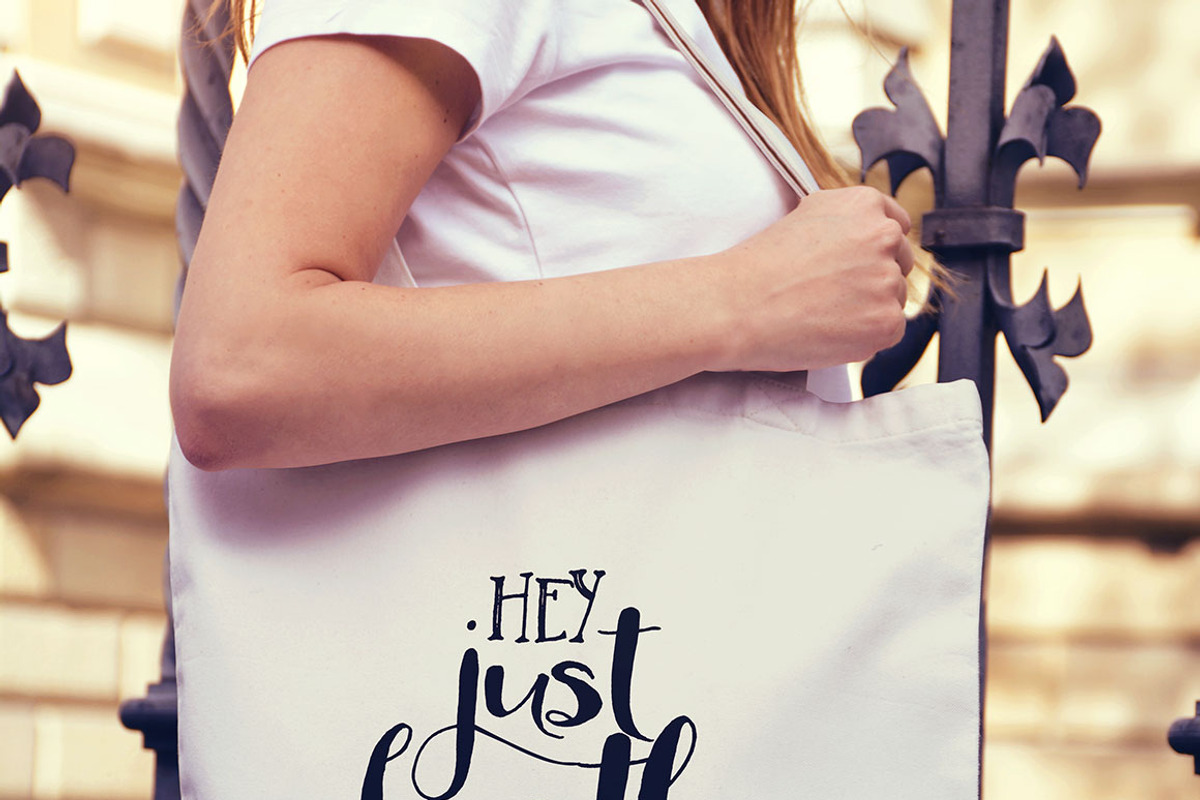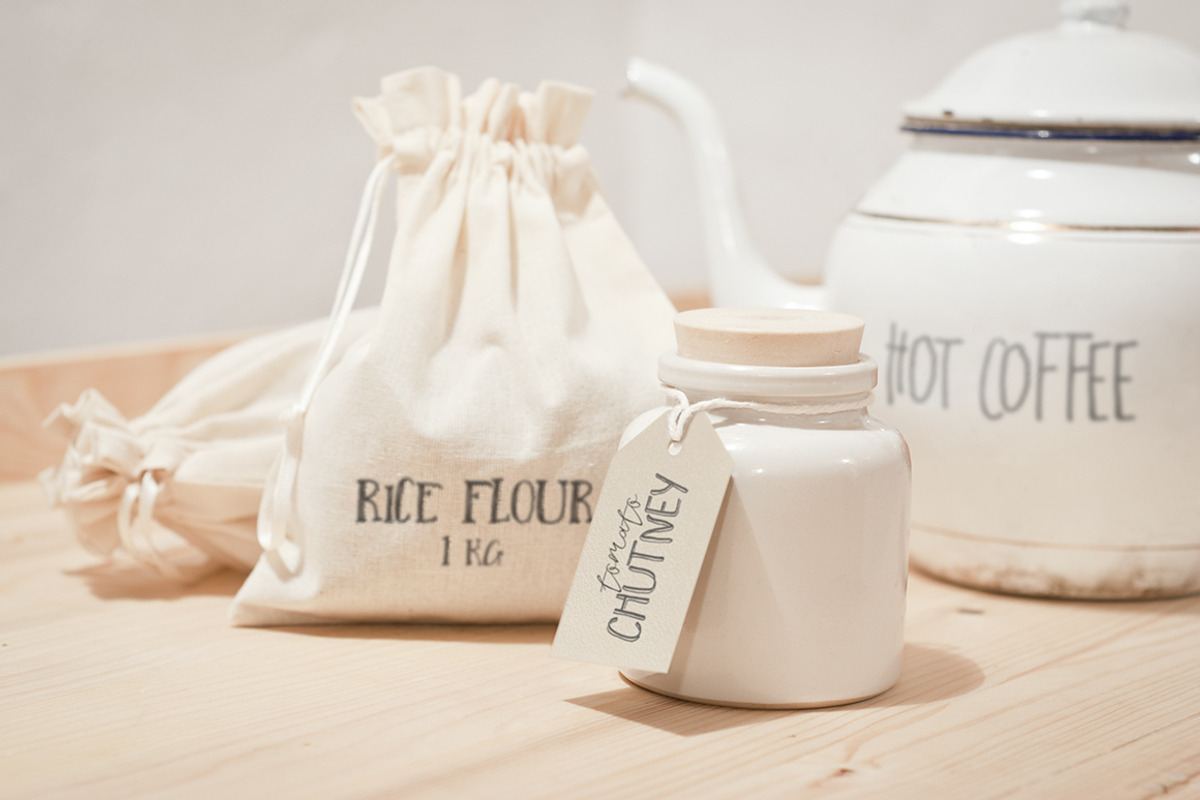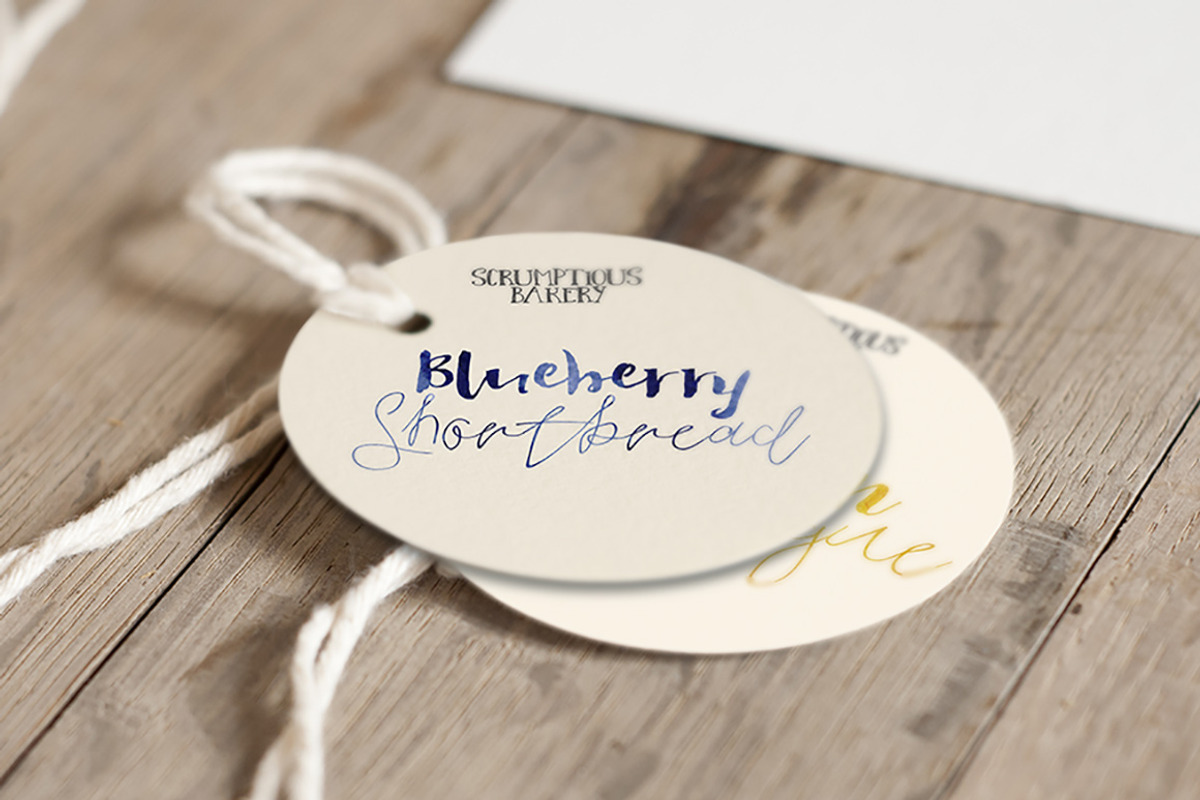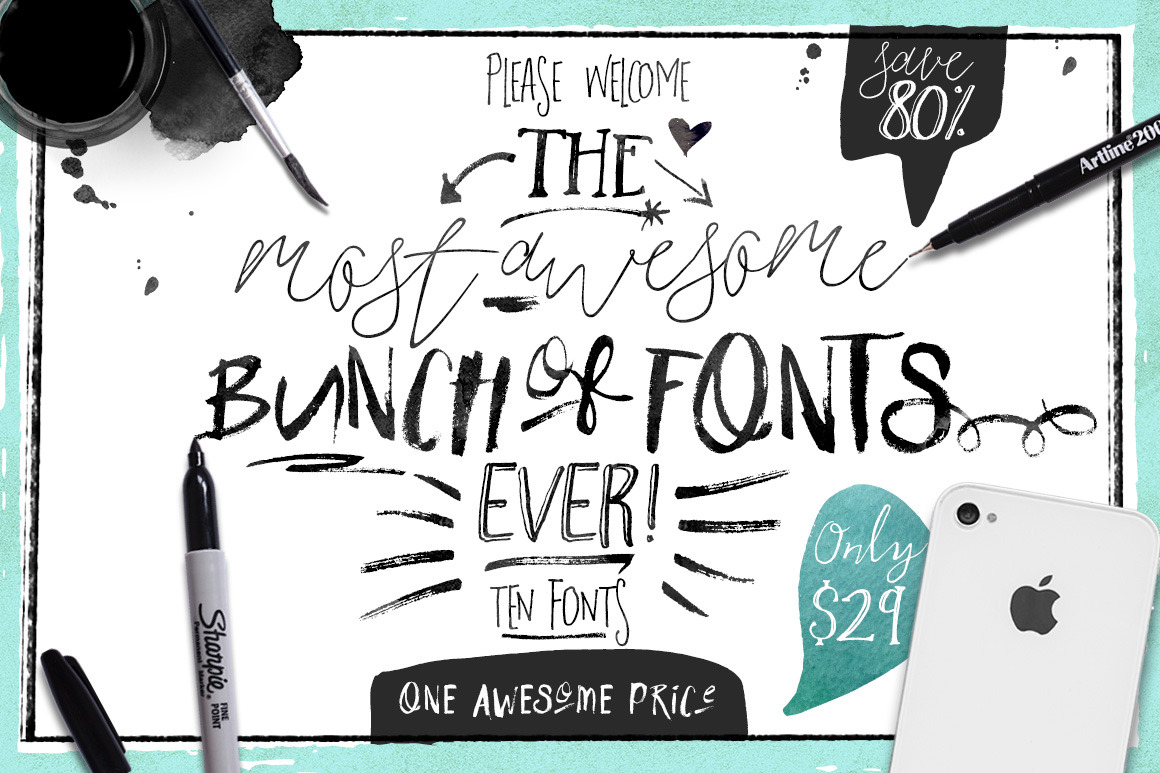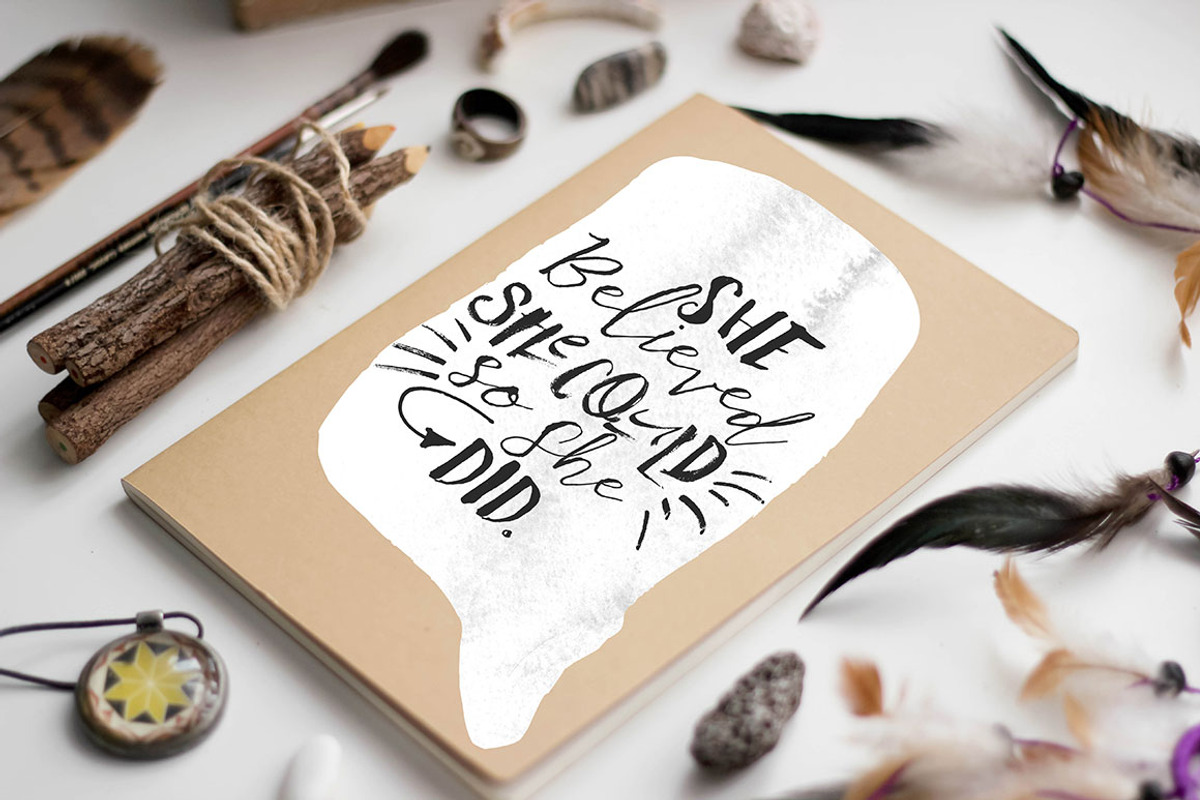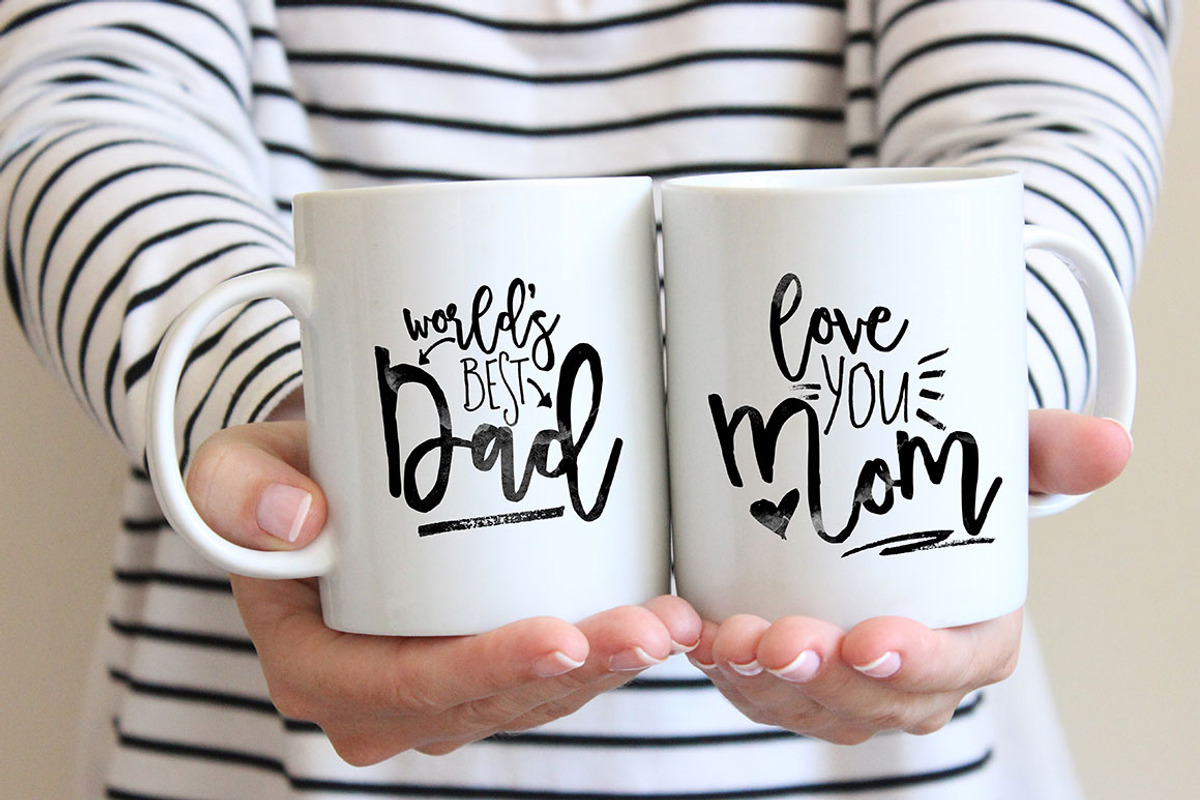
Big Bunch of Fonts
Introducing The most AWESOME Bunch of Fonts ever! - All Brand New
All these fonts work together perfectly to create that hand drawn typography that is so on-trend.
The ten fonts are;
- Hello Journal (this also has a separate font file full of awesome hand painted extras!)
- Life & Laughter
- Show & Tell
- Feathertop
- Jellybeans
- School Blackboard
- Swizzlesticks
- Holiday Chaos
- Silverwaves
- Label Marker